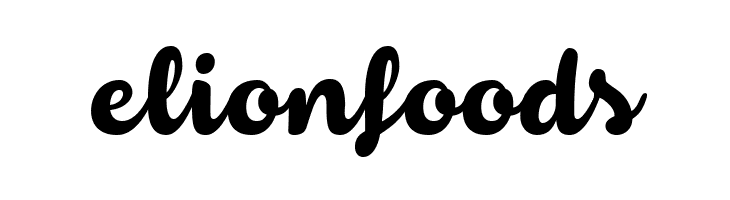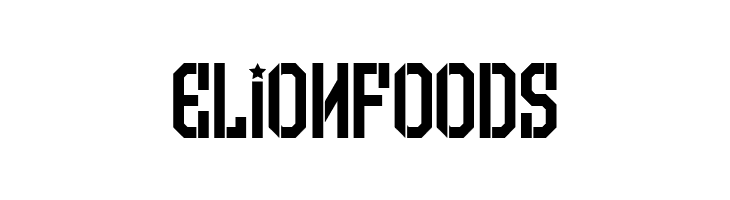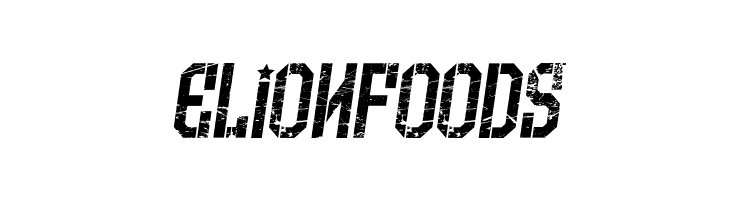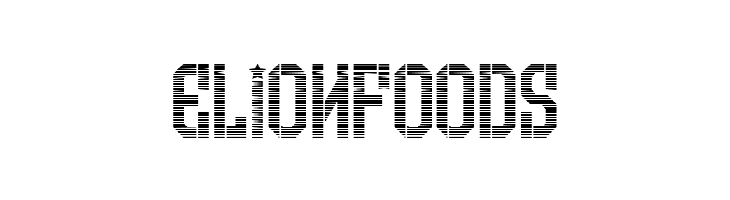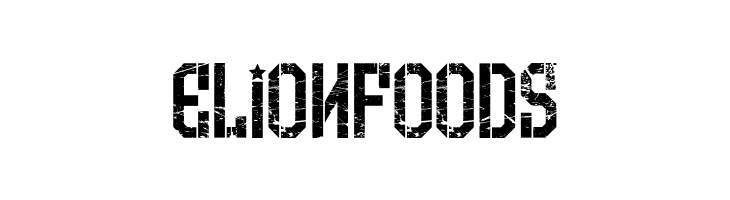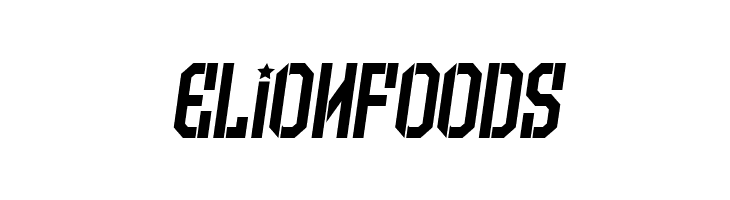
A modern, italicized font with a gradient effect and dynamic style.
A modern, striped font with a dynamic, futuristic design.
A bold, italicized grunge font with a distressed texture.
A bold, distressed font with a rugged, grunge texture.
A bold, angular, and italicized font with a futuristic and geometric style.
A bold, geometric font with a modern, stencil-like design.
A dynamic script font with fluid, connected strokes and a hand-drawn feel.